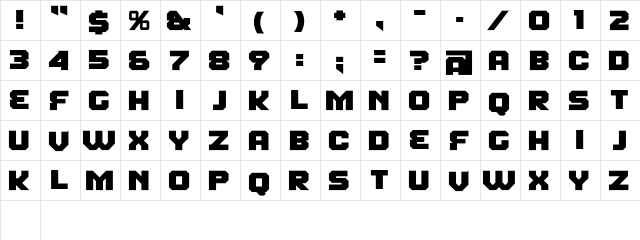
Fear Factor Black Regular
Design Context for Fear Factor Black Typeface
Fear Factor Black is a composed and adaptable typeface that performs quietly and consistently across a wide range of design contexts.